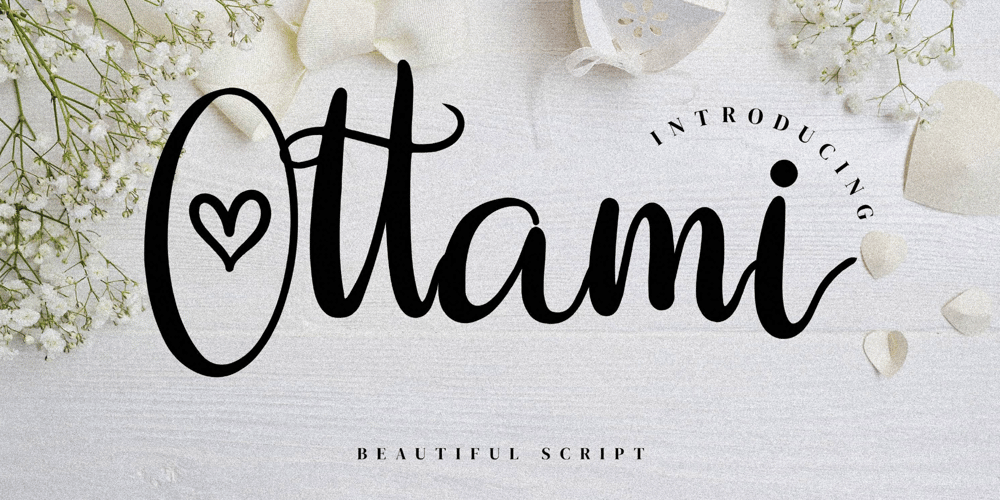
Ottami Font Family was designed by Dimas Alif Maulana and published by Integritype. Ottami contains 2 styles and family package options. Ottami is a beautiful, light and cursive script font, featuring characters that dance along the baseline. It is PUA encoded which means you can access all of the glyphs and swashes with ease!